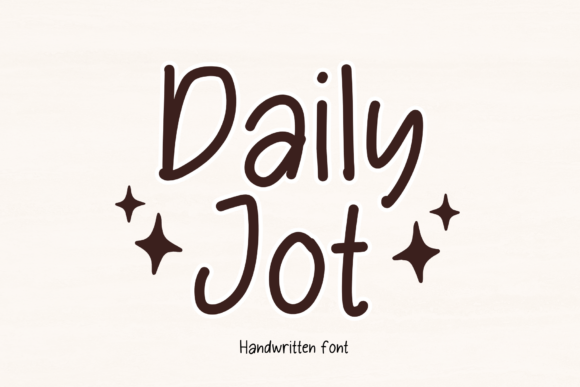
Discover the Charm of Daily Jot Font: Elevate Your Designs with a Touch of Whimsy
Are you tired of using the same old fonts in your designs? Do you want to add a touch of personality and playfulness to your projects? Look no further than the Daily Jot font, a beautiful handwritten font that embodies authenticity and whimsy. In this article, we’ll explore the features and benefits of Daily Jot, and show you how to make the most of this versatile font in your designs.
What is Daily Jot Font?
Daily Jot is a handwritten font that is designed to bring a sense of playfulness and authenticity to your designs. With its unique and charming lettering style, Daily Jot is perfect for a wide range of projects, from blog posts and logos to branding, ads, invitations, greeting cards, planners, photo albums, decorations, and more.
Whether you’re a designer, artist, or DIY enthusiast, Daily Jot font is a great choice for anyone looking to add a personal touch to their work. Its handwritten style gives it a warm and approachable feel, making it perfect for projects that require a friendly and inviting tone.
Key Features of Daily Jot Font
So, what makes Daily Jot font so special? Here are some of its key features:
- Handwritten style: Daily Jot font is a genuine handwritten font, giving it a unique and personal touch.
- Playful and authentic: The font’s playful and authentic style makes it perfect for projects that require a friendly and approachable tone.
- Versatile: Daily Jot font can be used for a wide range of projects, from digital designs to print materials.
- Easy to read: Despite its handwritten style, Daily Jot font is easy to read and understand, making it perfect for body text and headings.
Uses of Daily Jot Font
Daily Jot font is an incredibly versatile font that can be used for a wide range of projects. Here are some ideas to get you started:
- Blog posts: Add a personal touch to your blog posts with Daily Jot font, perfect for headings, subheadings, and body text.
- Logos and branding: Use Daily Jot font to create a unique and memorable logo for your business or brand.
- Ads and marketing materials: Daily Jot font is perfect for ads, flyers, brochures, and other marketing materials that require a friendly and approachable tone.
- Invitations and greeting cards: Add a touch of whimsy to your invitations and greeting cards with Daily Jot font.
- Planners and journals: Use Daily Jot font to create beautiful and functional planners and journals.
- Photo albums and scrapbooking: Daily Jot font is perfect for photo albums and scrapbooking projects that require a personal touch.
- Decorations and crafts: Use Daily Jot font to create beautiful decorations and crafts, such as signs, banners, and wall art.
Tips for Using Daily Jot Font
Here are some tips for getting the most out of Daily Jot font:
- Experiment with different sizes: Daily Jot font looks great in a variety of sizes, from small body text to large headings.
- Mix and match with other fonts: Daily Jot font pairs well with a range of other fonts, so don’t be afraid to experiment with different combinations.
- Use it for headings and subheadings: Daily Jot font is perfect for headings and subheadings, adding a touch of personality to your text.
- Add some color: Daily Jot font looks great in a range of colors, so don’t be afraid to add some personality to your designs with color.
In conclusion, Daily Jot font is a beautiful and versatile handwritten font that embodies playfulness and authenticity. With its unique and charming lettering style, Daily Jot is perfect for a wide range of projects, from blog posts and logos to branding, ads, invitations, greeting cards, planners, photo albums, decorations, and more.
Whether you’re a designer, artist, or DIY enthusiast, Daily Jot font is a great choice for anyone looking to add a personal touch to their work. So why not give it a try and see the difference it can make in your designs?
- What is Daily Jot font? Daily Jot font is a handwritten font that embodies playfulness and authenticity.
- What can I use Daily Jot font for? Daily Jot font can be used for a wide range of projects, including blog posts, logos, branding, ads, invitations, greeting cards, planners, photo albums, decorations, and more.
- Is Daily Jot font easy to read? Yes, Daily Jot font is easy to read and understand, making it perfect for body text and headings.